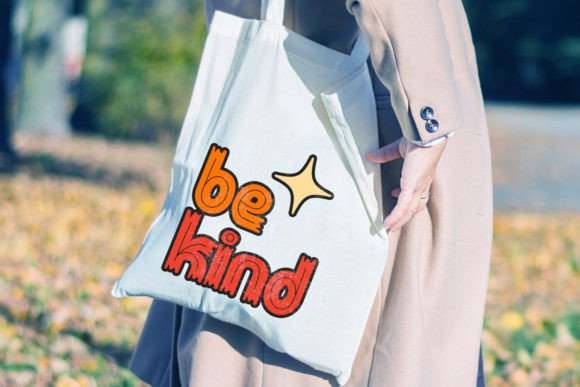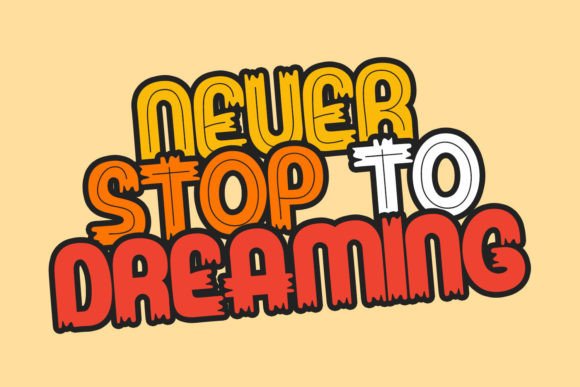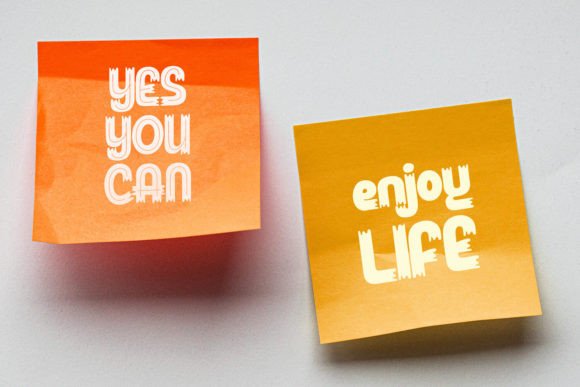
Introduction to Reglues Font
Reglues is a charming display font that embodies playfulness and boldness in every letter.
Designed with a thick weight and quite rounded shape, Reglues ensures your text stands out The unique characteristic of Reglues is its non-straight outline, adding a whimsical touch to its overall appearance.